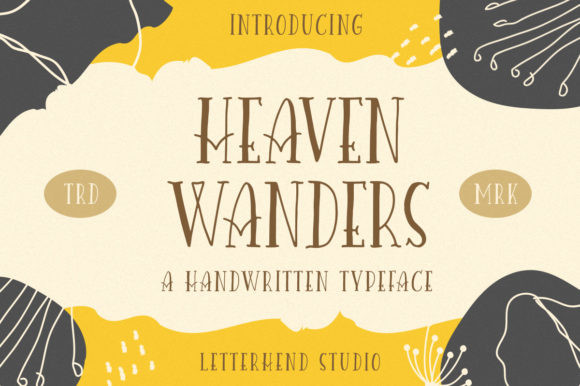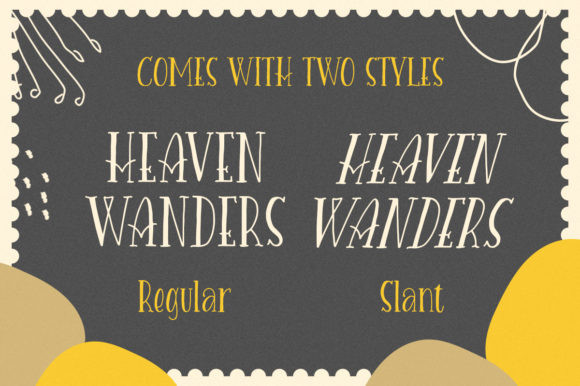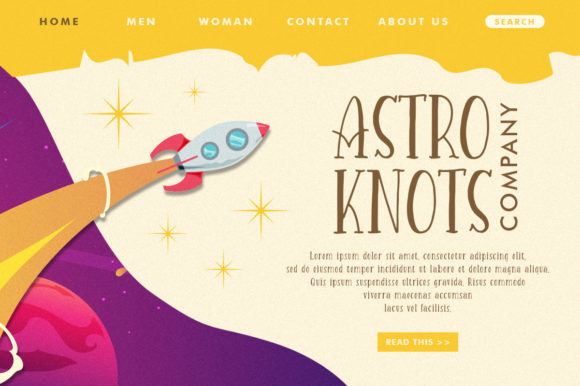
Heaven Wanders Font
Heaven Wanders is a simple and neat lettered serif font. Add this font to your creative ideas and notice how it will make them stand out!